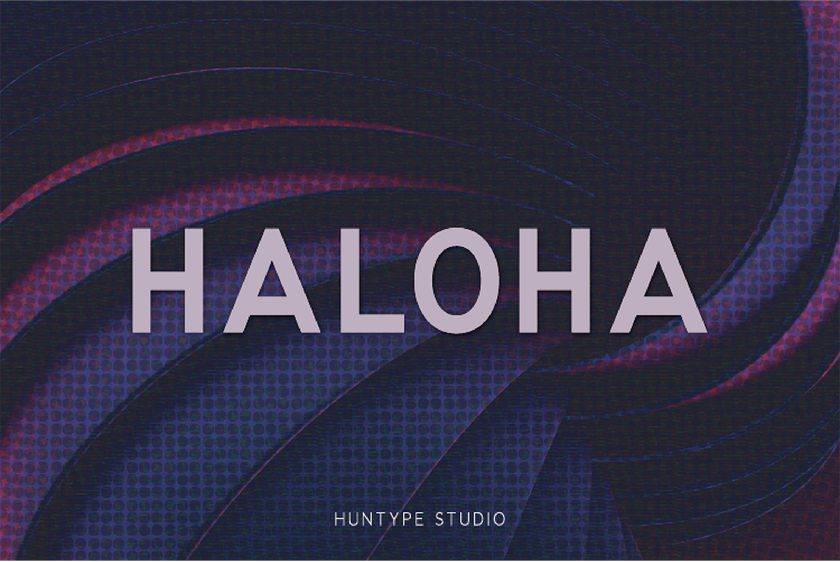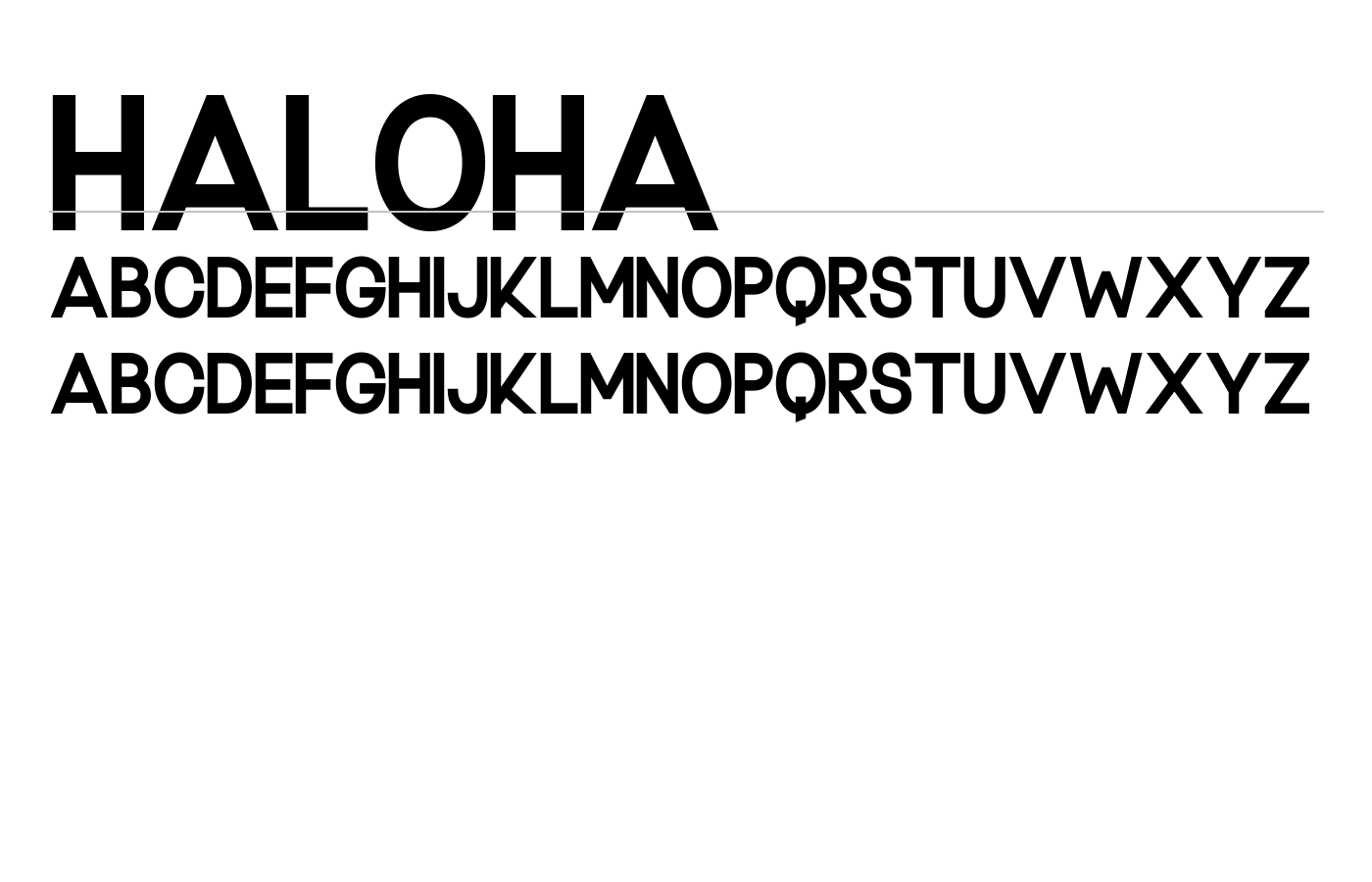
Haloha is a bold, geometric sans serif font with a clean, modern feel. Its uniform stroke weight and wide proportions give it a strong, confident appearance, making it ideal for impactful headlines, logos, and branding that demand clarity and presence. This font’s simplicity and sharp angles convey professionalism and contemporary style, perfect for fashion, technology, and editorial uses.
Haloha Font